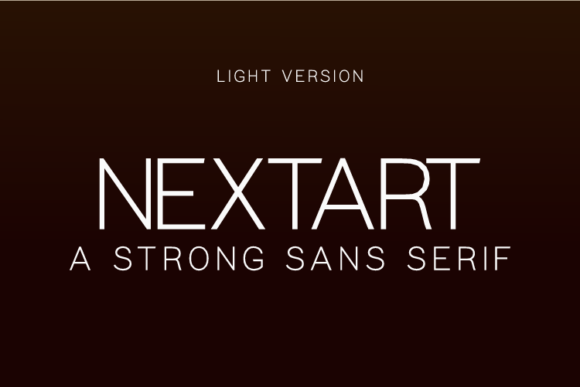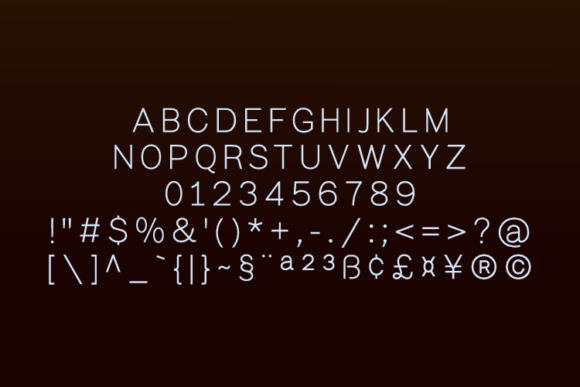
HomeSans Serif FontsNextart Light Font Sans Serif Fonts Nextart Light Font FacebookXPinterestWhatsApp Nextart Light Font 1 of 2 About Nextart Light Font Nextart is a romantic, timeless, and minimalistic all caps sans serif font that looks stunning in any context. It’s perfect for magazine layouts, invitations, headers, or even large-scale artwork. DOWNLOAD NOW People also explored Holly Jolly Font Moodyloske Font Deddy Winnie Font Tuesday Jingle Font Don”t Lebay Dianar Font Kaldera Font Quaking Regular 388 0 TagsNextart Light Font Previous articleNextart FontNext articleNextart Extra Light Font LEAVE A REPLY Cancel reply Comment: Please enter your comment! Name:* Please enter your name here Email:* You have entered an incorrect email address! Please enter your email address here Website: Save my name, email, and website in this browser for the next time I comment. Personal Use Free Anggiana Personal Use Free Read more about this font Sefiya Personal Use Free Read more about this font Konexio Personal Use Free Read more about this font Planning Personal Use Free Read more about this font BLOG Using Fonts in Digital Marketing: Tips to Strengthen Your Brand Identity In the realm of digital marketing, every visual element plays a crucial role in shaping a brand's identity, and fonts are no exception. The... Top 10 Handwritten Fonts That Elevate Your Designs Free Fonts Risk: Why Free Fonts Can Be Dangerous for Designers Free vs Paid Fonts: Why Investing in Premium Fonts Is Worth It